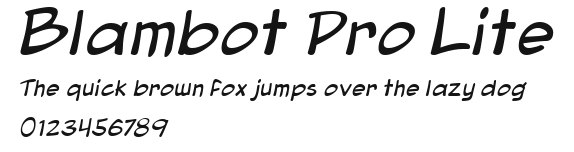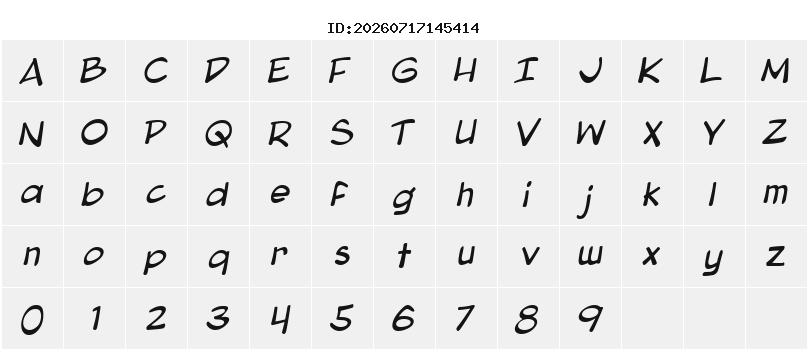
Blambot Pro Lite Preview
• Font Name: Blambot Pro Lite
• Font ID: Blambot Pro Lite
• Full Font Name: Blambot Pro Lite Italic
• Version: Macromedia Fontographer 4.1 3/17/01
• PostScript Name: BlambotProLiteItalic
• Character Count: 109
About Blambot Pro Lite.ttf
Blambot Pro Lite.ttf is a modern, elegant sans-serif font designed for ultimate readability and visual harmony. Perfect for branding, headlines, web design, and print materials.